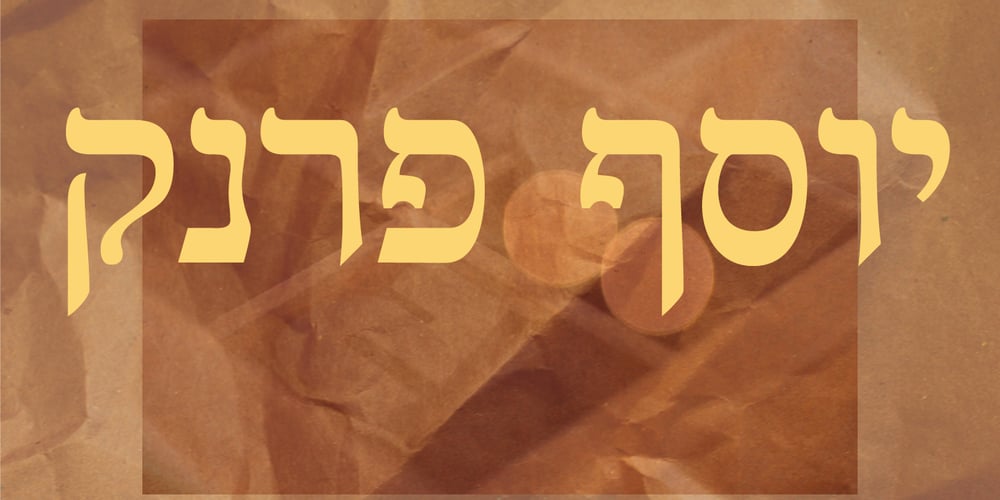
Frank Ruhl MF Font Family was designed by Rafael Frank and published by Masterfont. Frank Ruhl MF contains 12 styles and family package options. The most popular Hebrew typeface, designed in 1908 by Raphael Frank and Otto Rühl. OpenType ProExcellent support for Niqqud (Vowels). All marks are programmed to fit each glyph’s shape and width. OpenType Pro includes new advanced features like Dagesh Hazak, ShevaNa, Qamatz Katan, Holam Haser and wide letters.Best used with Adobe InDesign CC that support complex Hebrew text.Please check these advanced features in this link:https://tinyurl.com/ybgdsxme